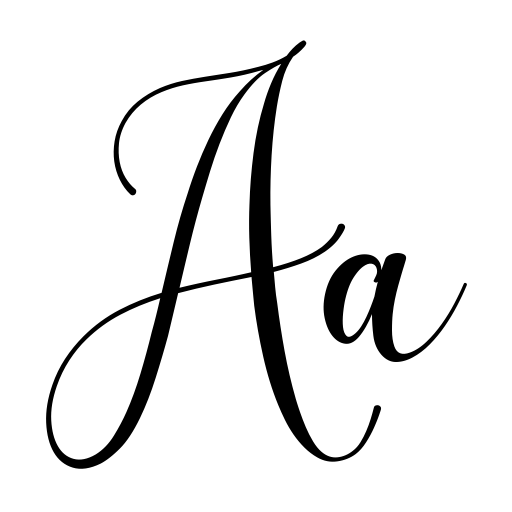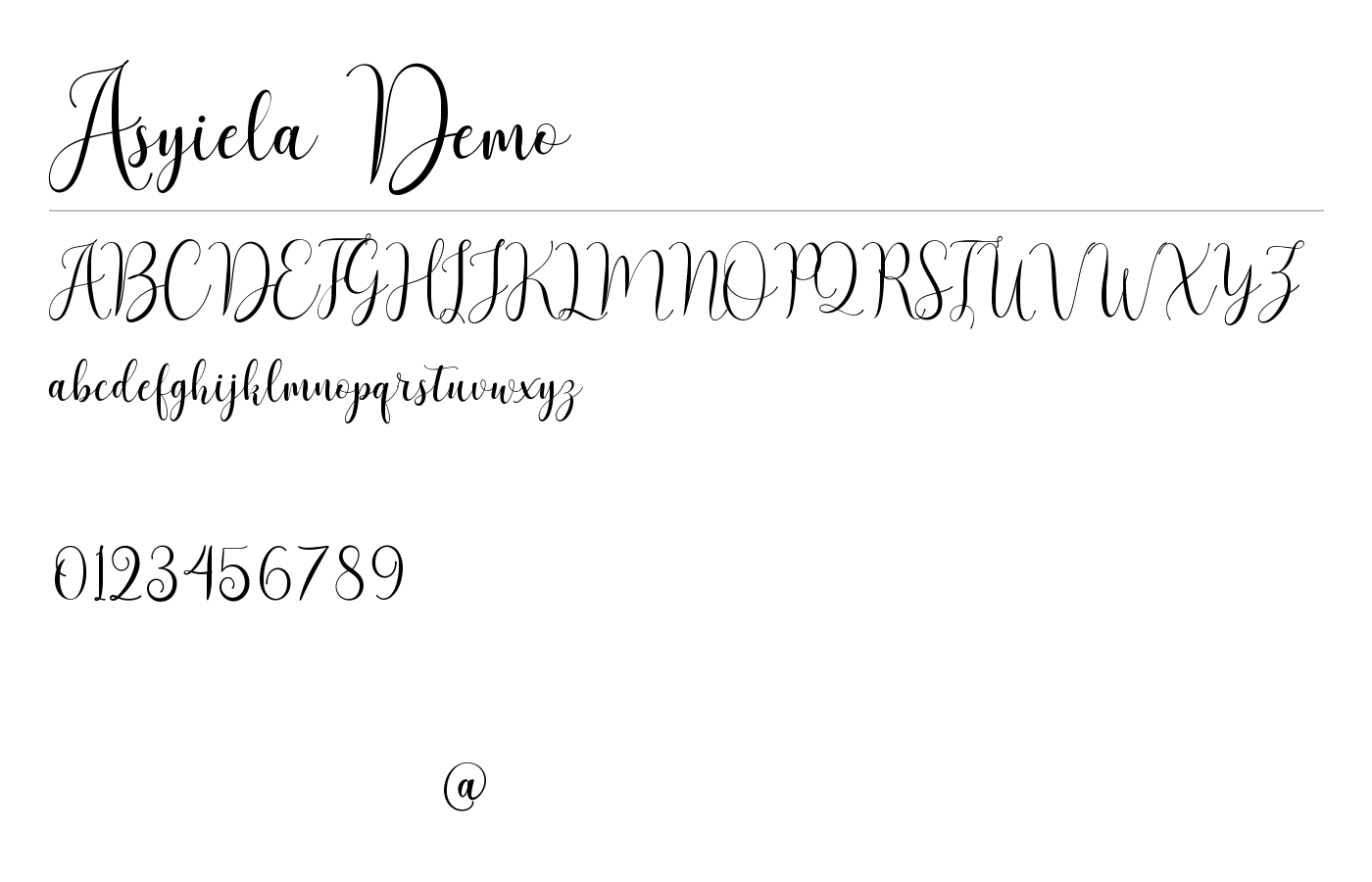
Asyiela Demo is an elegant, delicate script font with fine, flowing strokes and a graceful, hand-drawn feel. Its tall, slender letterforms and decorative swashes add a sophisticated, romantic touch, making it ideal for wedding invitations, luxury branding, and stylish headlines where a refined, personal look is desired. This font works best in large sizes for display use, bringing a charming and expressive personality to any design.
Asyiela Demo Font
About Asyiela Demo Font
| Font family | Asyiela Demo Font |